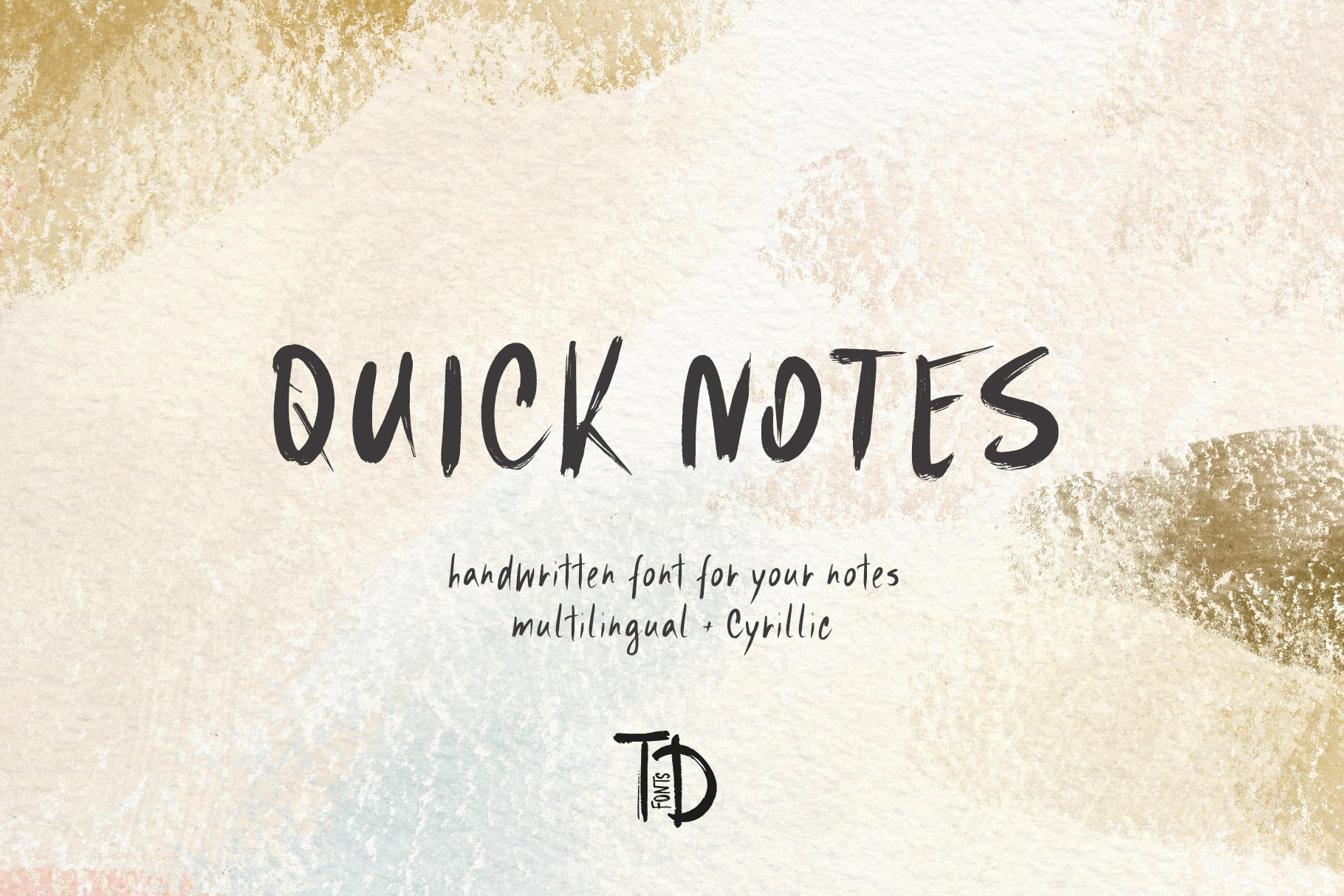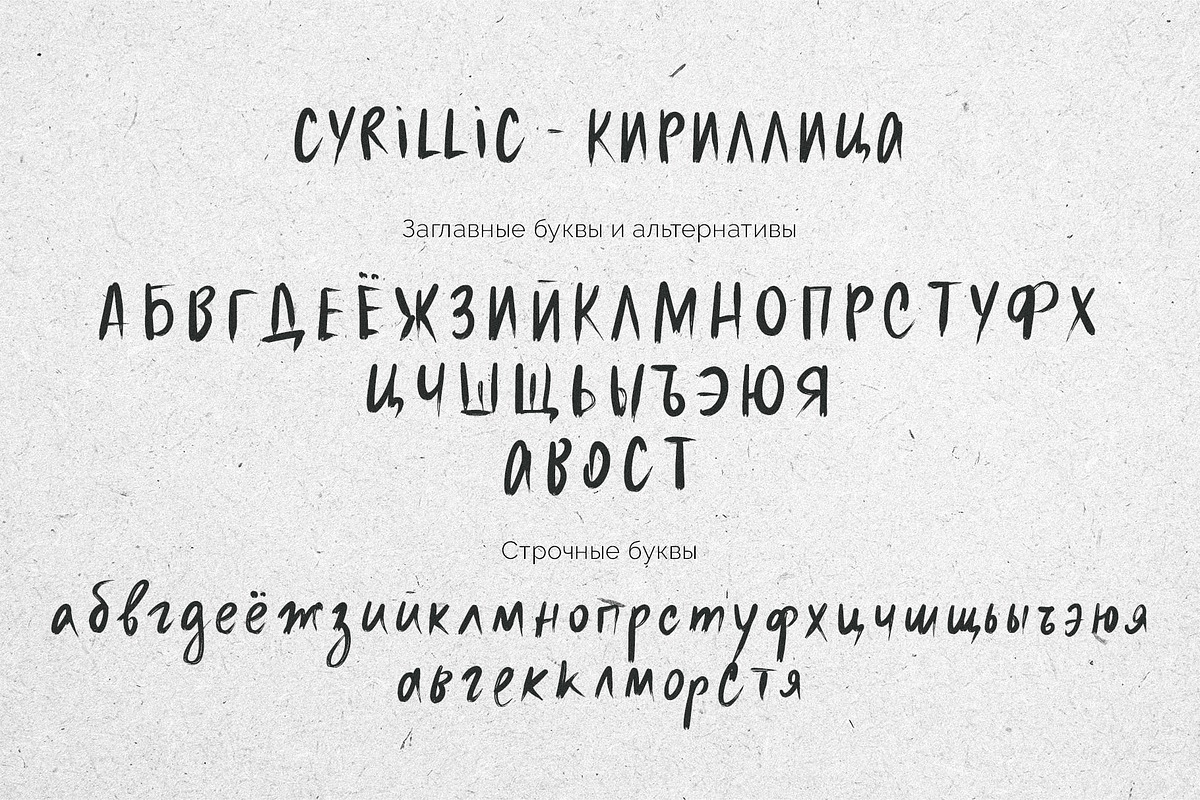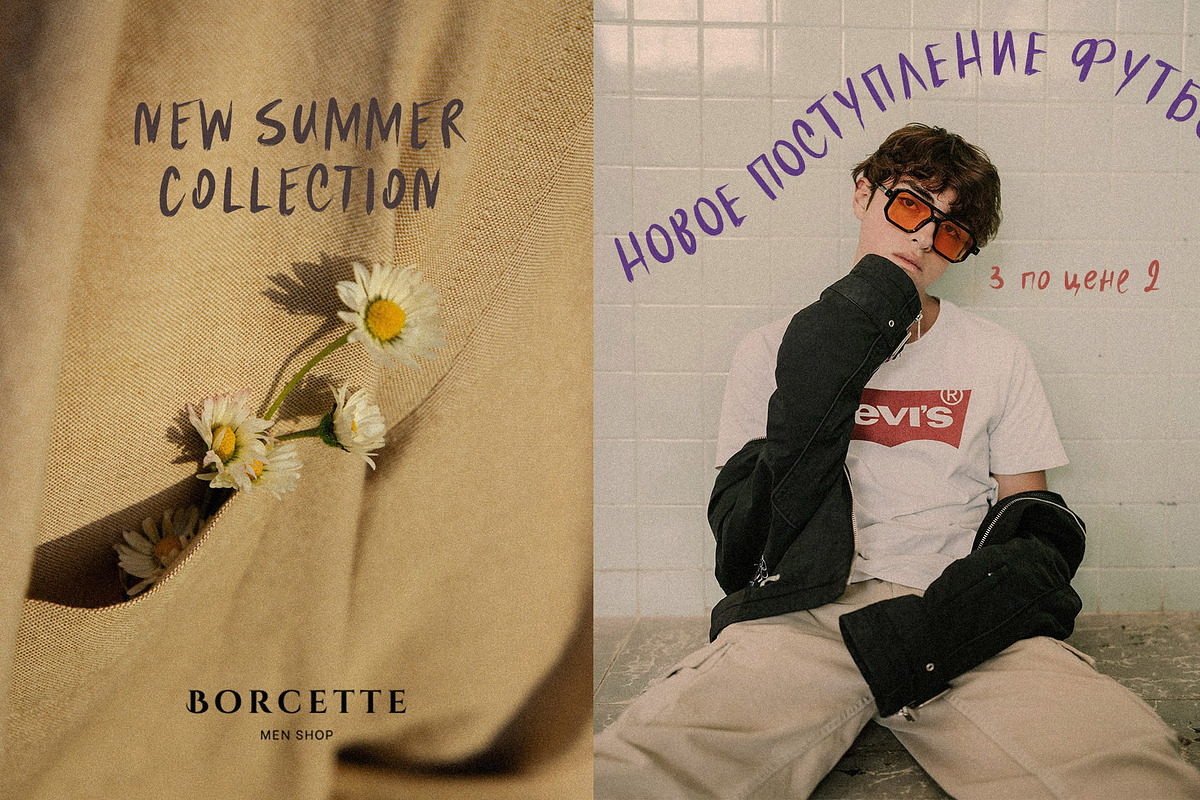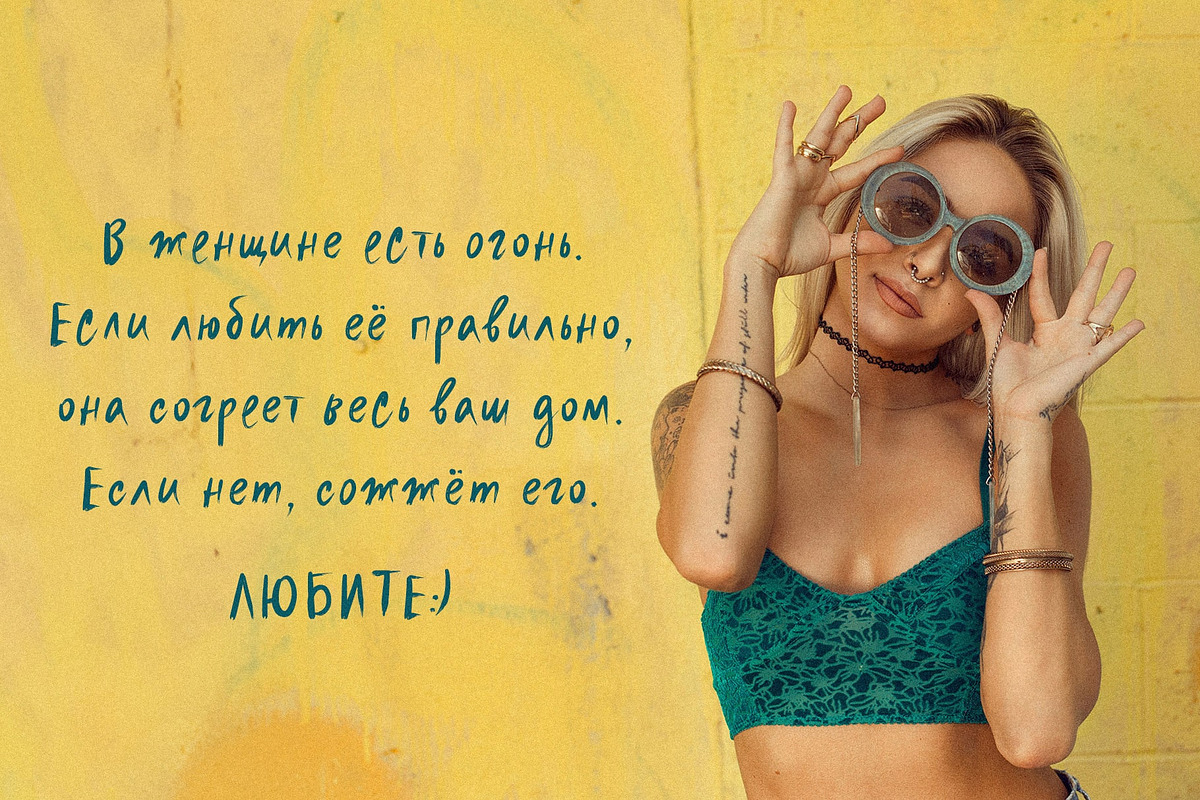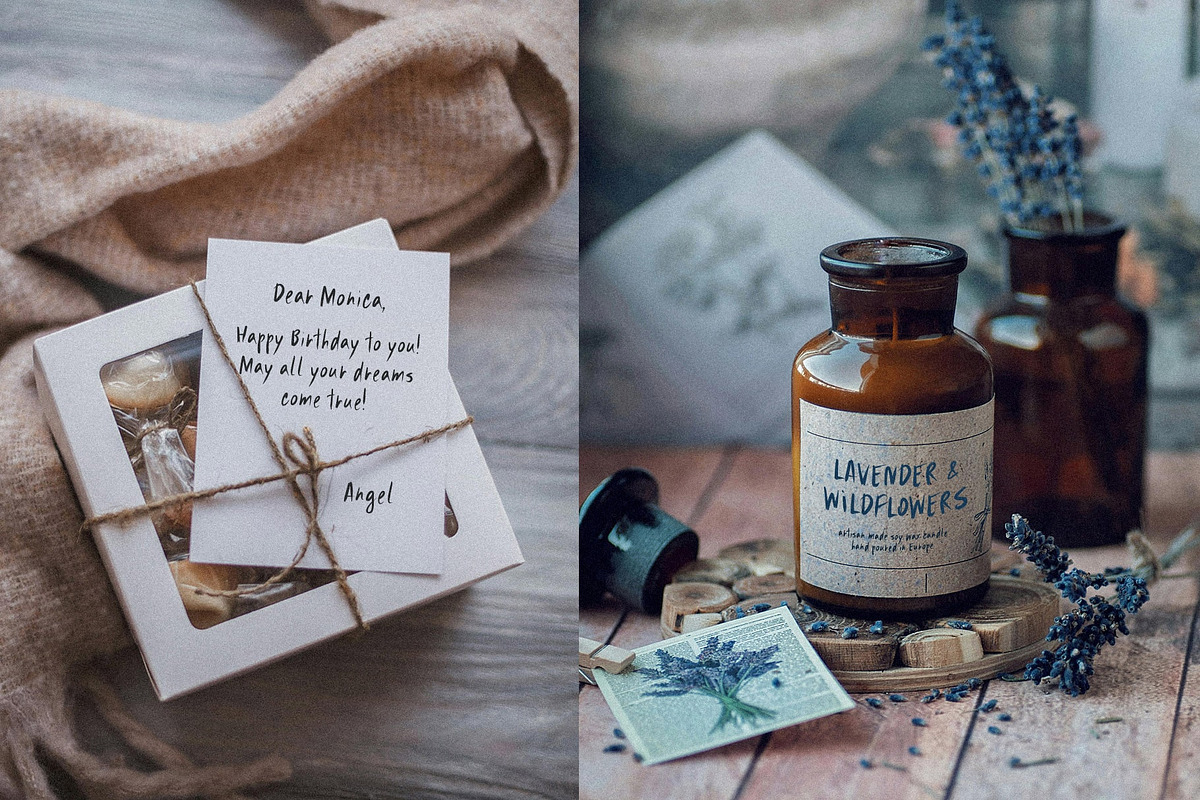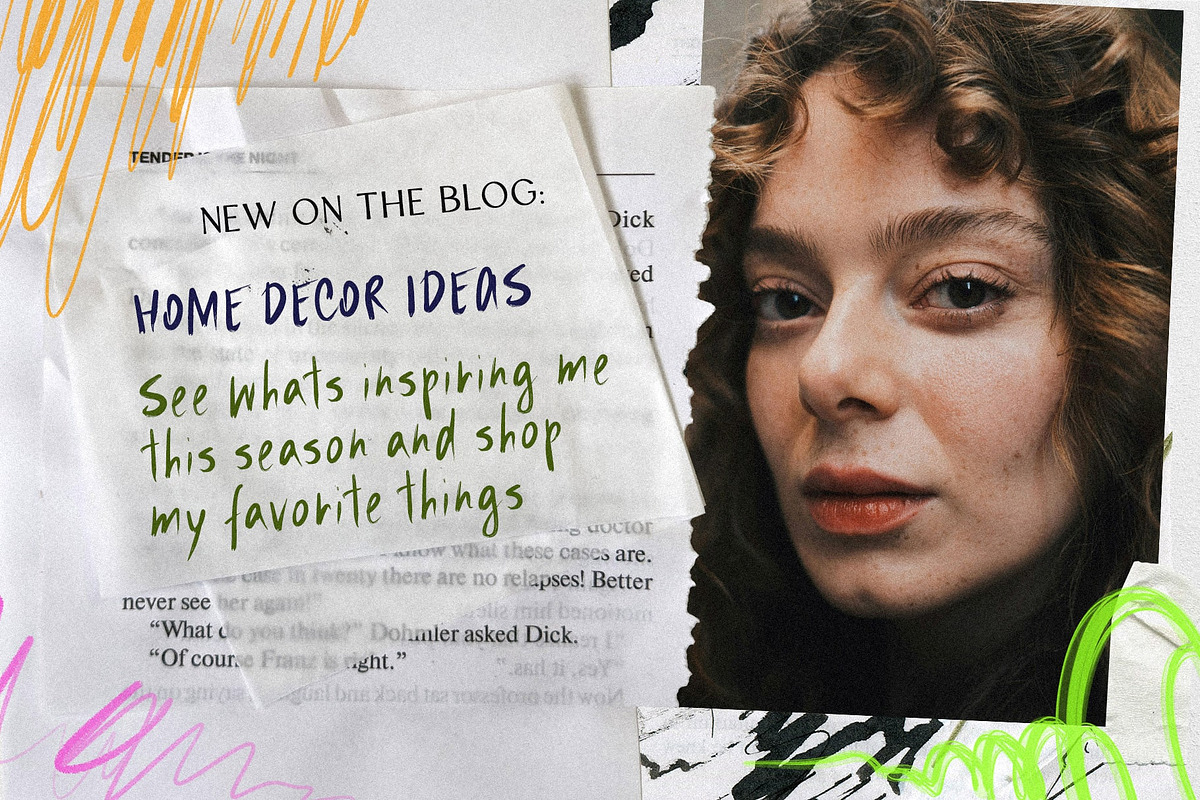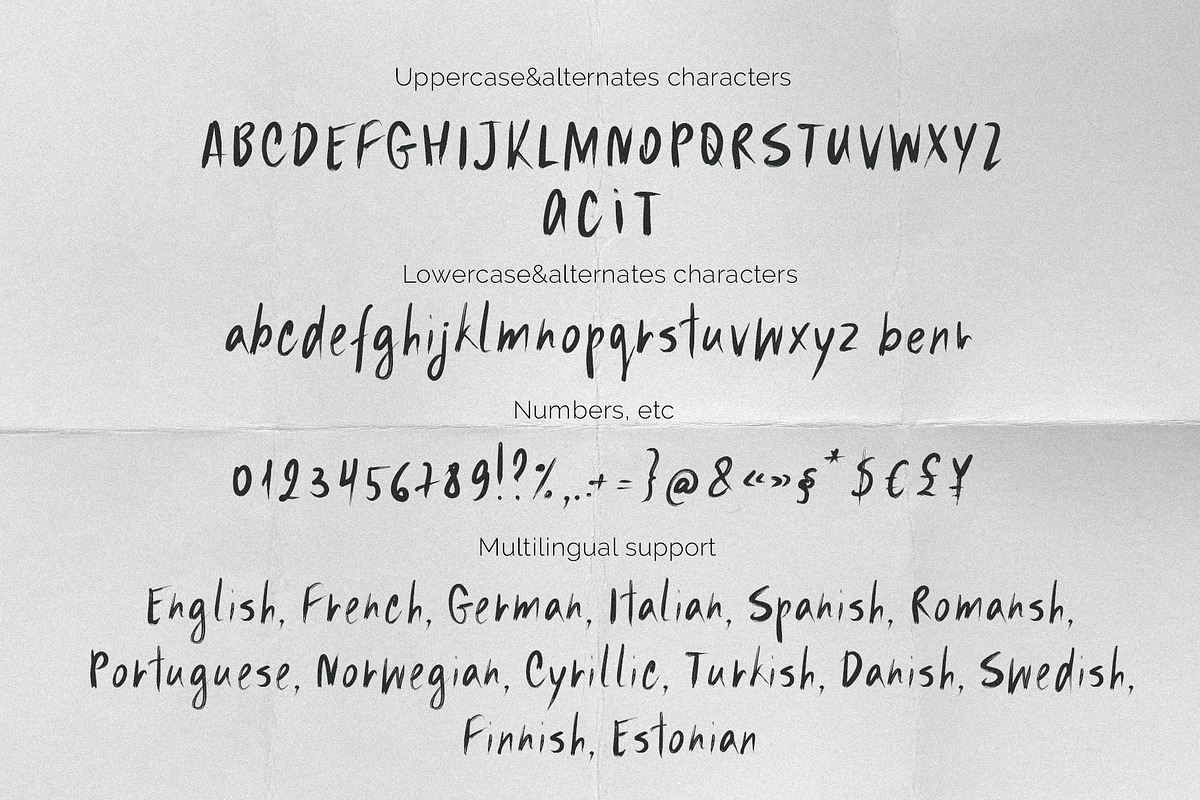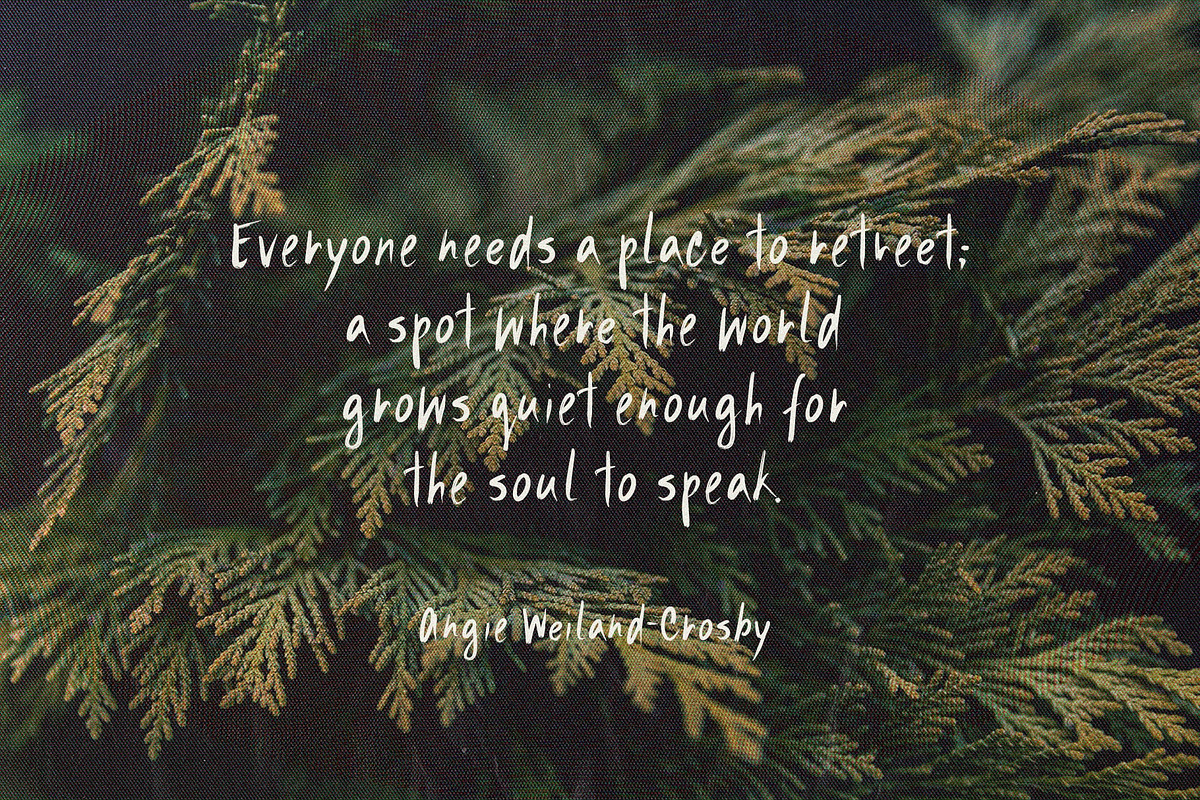
Quick Notes Handwritten font
Unleash the natural charm of handwritten design with Quick notes, a modern and unique font capturing the essence of a quick, flourished stroke. Quick notes goes beyond the ordinary script, offering a touch of individuality perfect for contemporary design projects. Inspired by the swiftness of handwritten notes, this font injects a sense of ease and authenticity into your creations.
Quick notes is perfect for: social media graphics with a personal touch, website headlines and headers that stand out, greeting cards and invitations brimming with warmth, branding materials that radiate authenticity and much more!
Quick notes has extensive language support, it includes English, French, German, Italian, Spanish, Portuguese, Danish, Norwegian, Swedish, Finnish, Estonian, Romansh, Turkish, Cyrillic. Need to know if your language is supported? Type any words in the text box below and see if all characters you need are there.